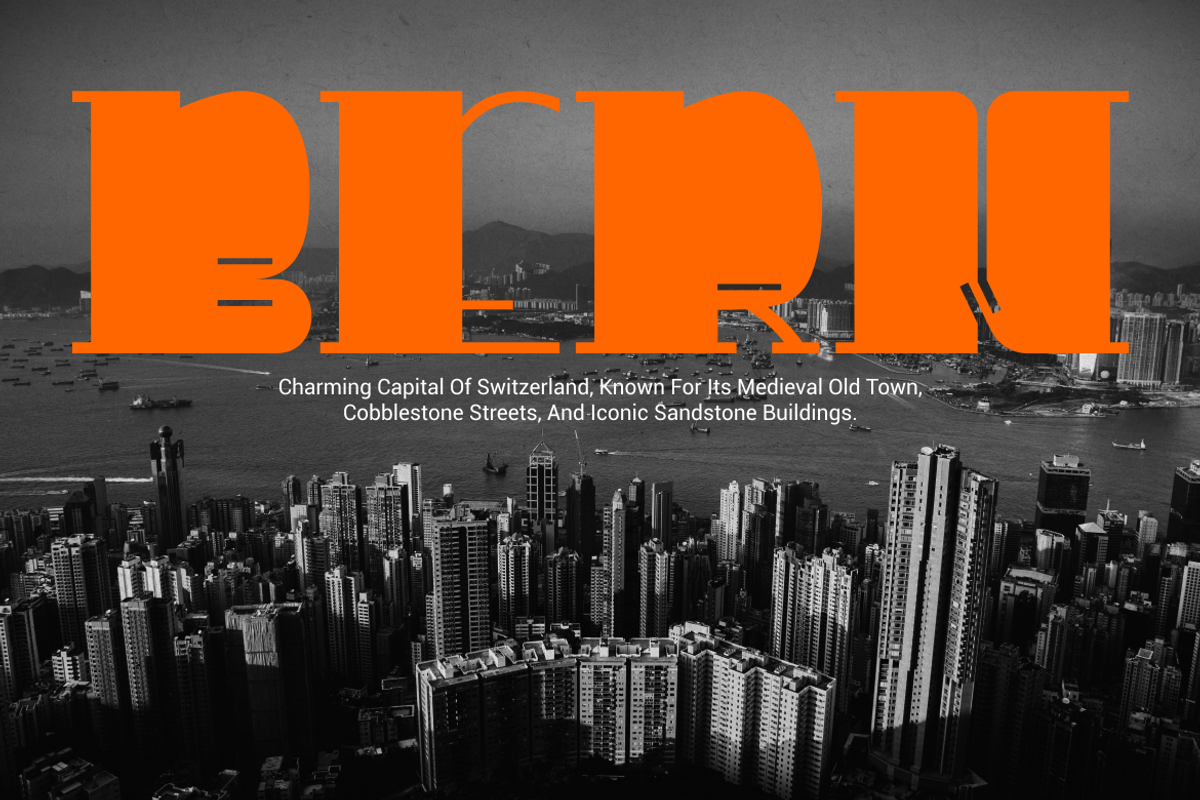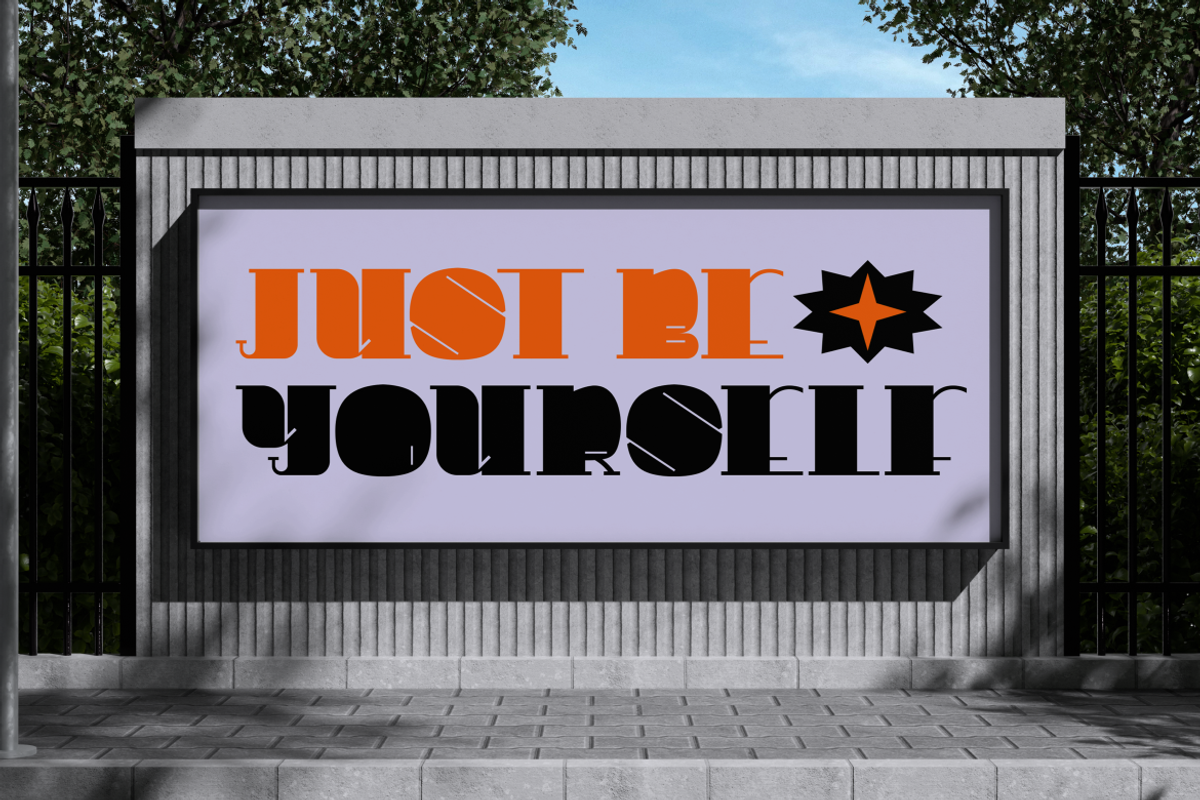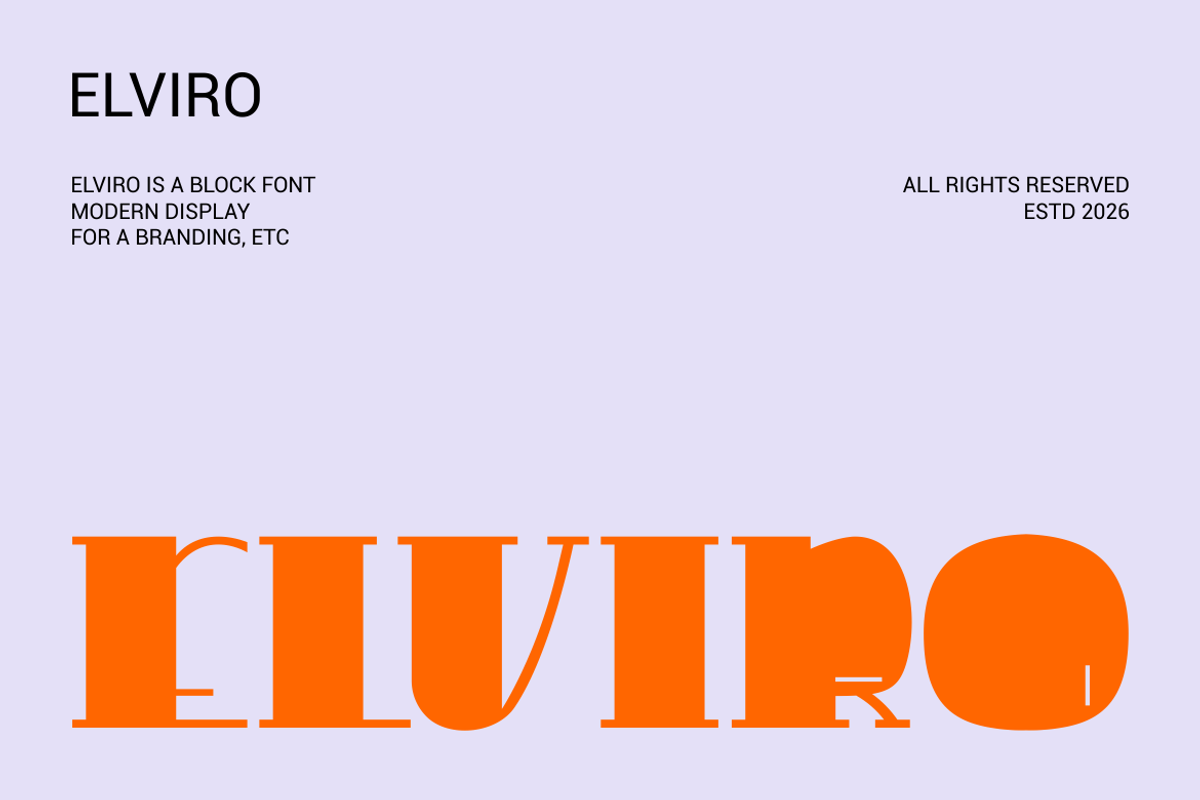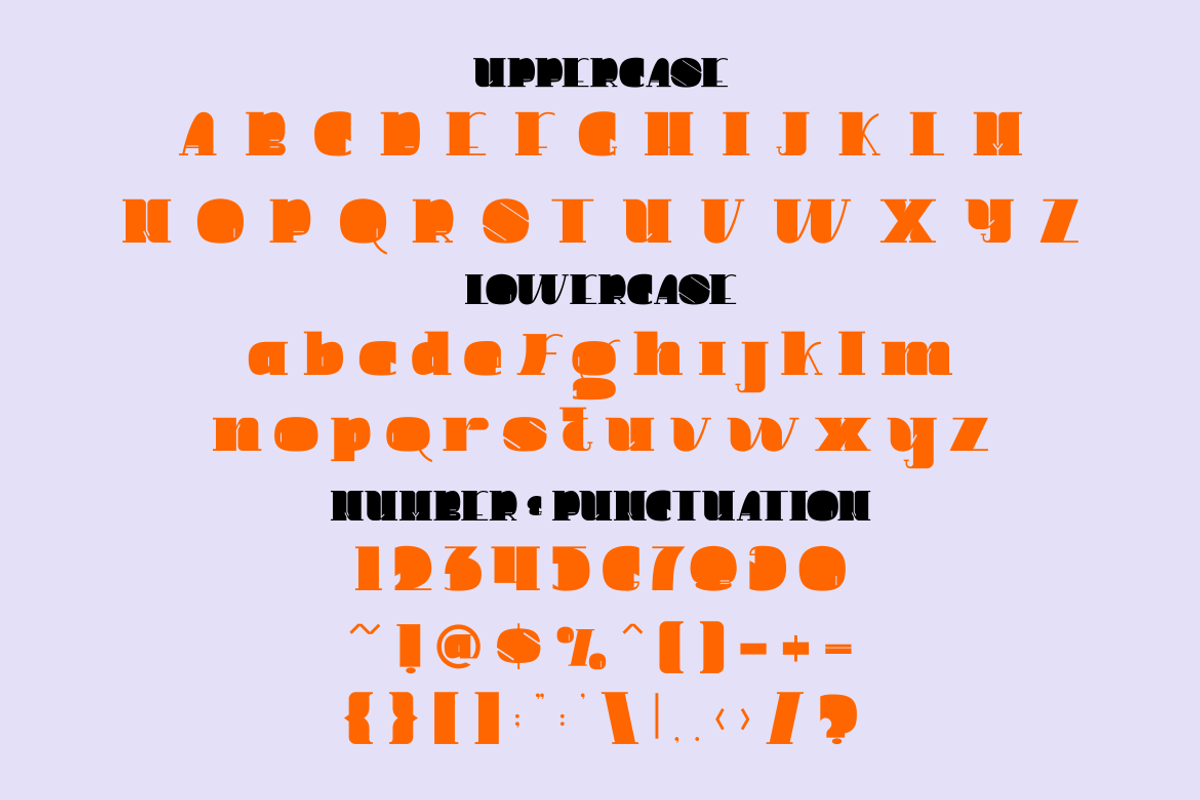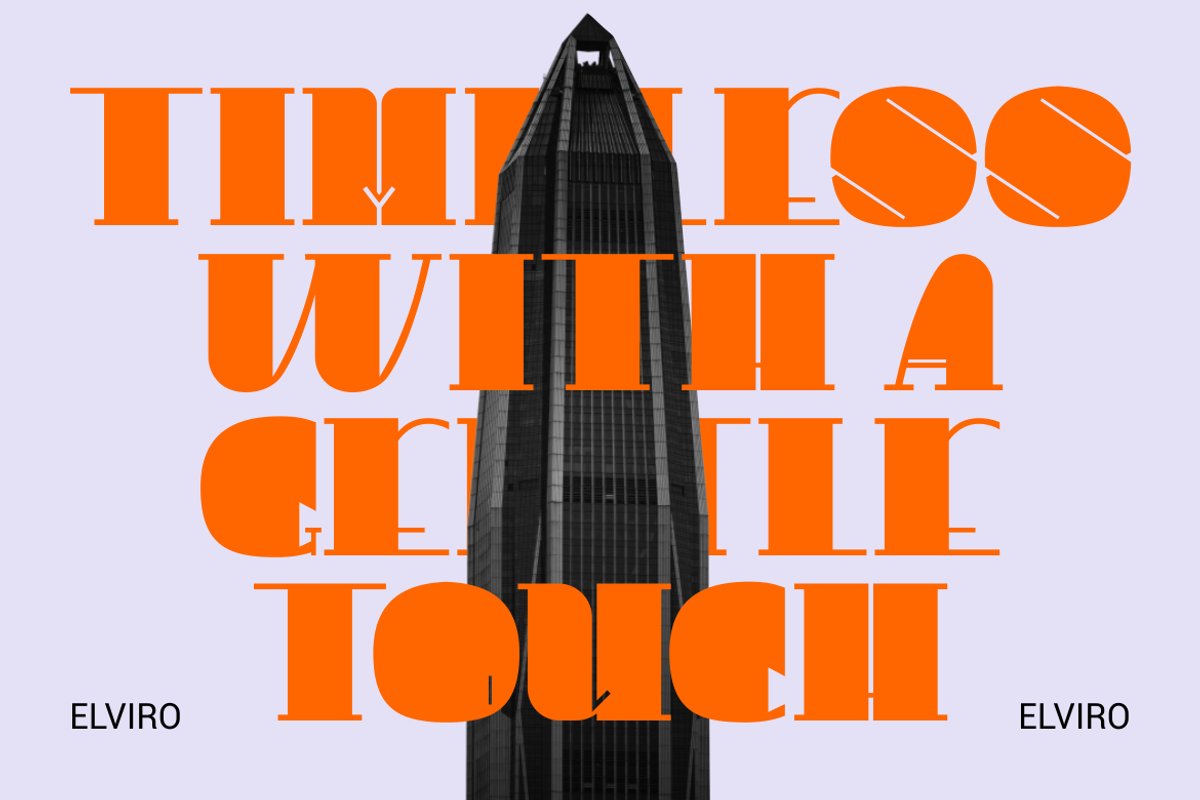
Elviro Block Font
Elviro Block Font is a bold display typeface built with strong geometric structure and solid forms. The letterforms feature thick strokes with compact proportions and minimal contrast. Each character appears wide and heavy, creating a dense and powerful visual weight. The edges are mostly sharp with occasional curved cuts that add subtle uniqueness. The counters are tight and controlled, enhancing the solid block appearance. Stroke consistency keeps the structure stable and highly legible in large sizes. Elviro Block Font blends modern block style with a slightly industrial tone. The design communicates strength, confidence, and clarity. It works effectively for logos, branding systems, and bold headline typography.
The compact and heavy structure creates a commanding presence in visual communication. Designers can use this typeface for logo design, corporate branding, and advertising headlines. It fits well with themes related to urban business, construction, technology, and modern industries. The bold shapes ensure high visibility for posters, signage, and promotional materials. Elviro Block Font also works well for magazine titles, book covers, packaging labels, and campaign graphics. The structured letterforms support strong brand identity and consistent messaging. Businesses such as real estate, architecture firms, tech companies, and industrial brands can benefit from this font style.